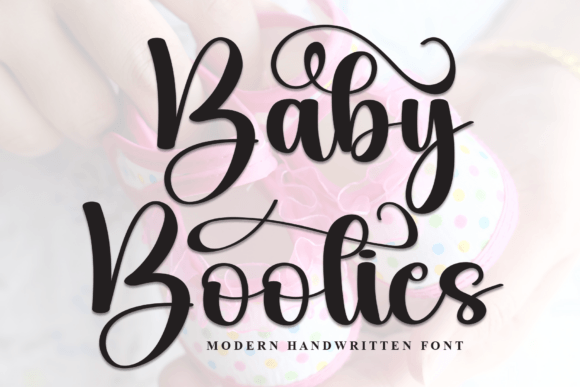
Get Ready to Step Up Your Baby-Themed Designs
As a designer, there’s nothing quite like the feeling of creating something that brings joy to others. Whether it’s a custom birthday card or a heartfelt invitation, you know that the right font can make all the difference. I still remember the moment I discovered the perfect font for my little niece’s baby shower invitation – a playful script that made me smile from ear to ear.
That font was none other than Baby Booties Font, a bold and cheerful script that’s perfect for adding a touch of whimsy to baby-themed designs. With its smooth, flowing letters, it’s no wonder why designers love using Baby Booties Font to create adorable cards, invitations, and more. Whether you’re a seasoned pro or just starting out, this font is sure to bring a smile to your face and make your designs stand out.
Baby Booties Font Key Features
- Unique Characteristics: The font features adorable baby booties with intricate details, making it perfect for nursery decor, baby-themed designs, and children’s products.
Baby Booties Font Review
I’ve had the chance to work with Baby Booties Font, and I wanted to share my honest thoughts on it.
The font is undeniably cute and perfect for baby-related designs. The playful, whimsical style is great for creating a nursery or baby shower theme.
- The font is well-suited for use in titles and headings, adding a touch of sweetness to any design.
- The font’s simplicity makes it easy to pair with other fonts, allowing for a variety of design combinations.
While the font is adorable, it may not be the best choice for formal or professional designs. Additionally, the font’s simplicity can also make it feel a bit generic.
- The font may not be the best option for body text, as it can be difficult to read in larger quantities.
- The font’s limited character set may make it less versatile for more complex designs.
Overall, Baby Booties Font is a great choice for designers working on baby-related projects or creating a playful, whimsical feel. However, it may not be the best fit for more formal or complex designs.
Use the “Baby Booties Font” for baby-themed designs, such as nursery decor, baby shower invitations, and onesie designs.
Combine the font with cute illustrations and graphics to create a cohesive and adorable design.
Experiment with different font sizes, colors, and styles to add visual interest to your design.
Baby shower invitations and decorations
Nursery decor and wall art